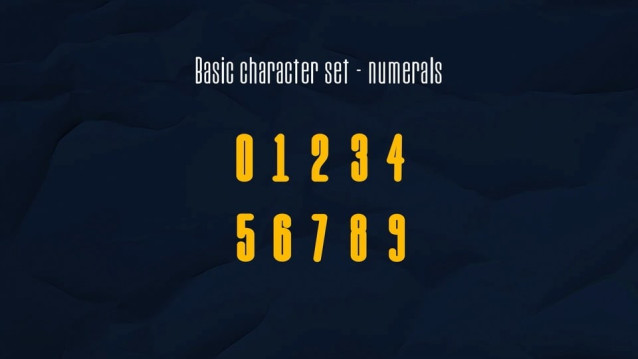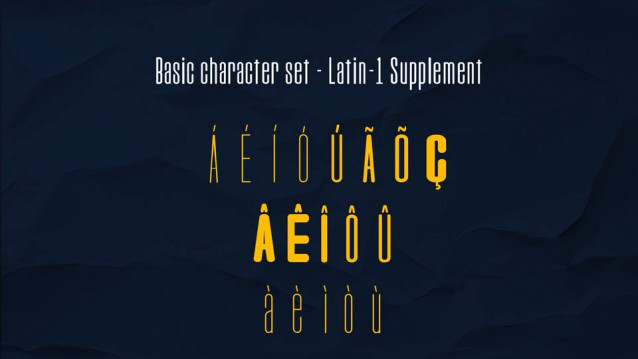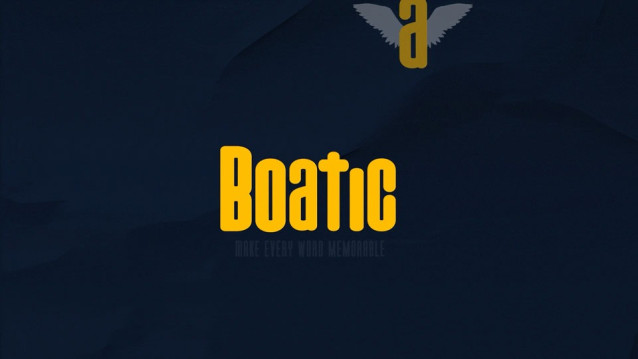
Boatica Font Family
Boatica Font Family is a bold and personality-filled display font, perfect for those looking to make an impact at first glance. With soft curves, rounded corners, and a striking presence, it combines modernity and charm in every letter.
Style: With rounded shapes and softened corners, it conveys a friendly and modern feel.
Proportions: Wide and tall letters with consistent stroke weight ensure a strong visual presence.
Personality: The rounded, sturdy design suggests versatility, suitable for both creative contexts and more institutional com-munications-so long as it retains a casual tone.
Ideal applications: Visual identities, packaging, book covers, poster titles, and advertising where legibility and visual impact are essential.